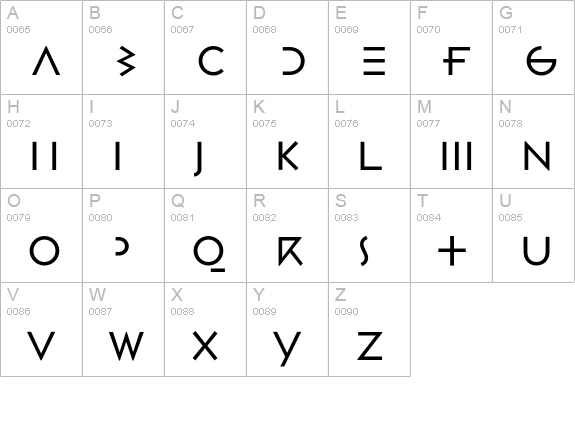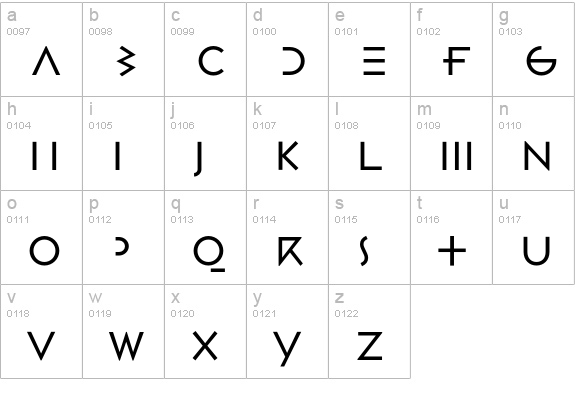
Gestalt-HTF-Linear-Light is a refined, elegant variant in the Gestalt typeface family \xE2\x80\x94 well suited to elegant body text, refined sub-headings, and luxury branding.
Gestalt-HTF-Linear-Light is a modern and sleek font that exudes sophistication and elegance. Its clean lines and balanced proportions make it perfect for a wide range of design projects, from branding to editorial design. The light weight of the font adds a touch of delicacy and refinement to any text it graces. The best part? Gestalt-HTF-Linear-Light is available for free download at FontsMarket.com. This means that you can easily access this stunning font and incorporate it into your designs without any cost. Whether you're a seasoned designer looking to refresh your typographic palette or a newcomer eager to experiment with different fonts, Gestalt-HTF-Linear-Light is a fantastic choice that won't break the bank. Don't miss out on the opportunity to enhance your design projects with the timeless beauty of Gestalt-HTF-Linear-Light. Download it for free today at FontsMarket.com and elevate your designs to new heights.